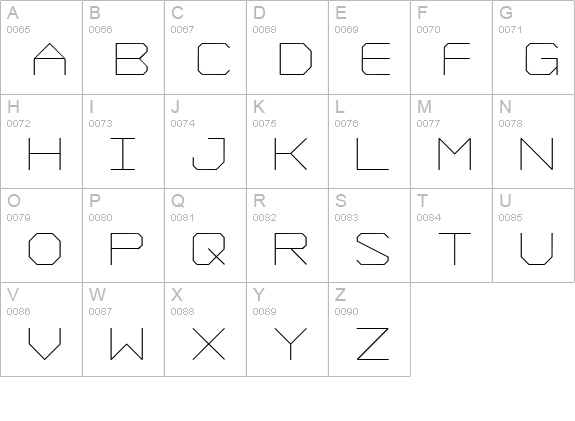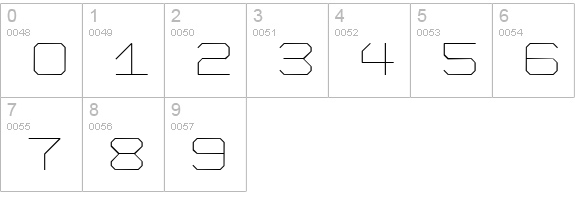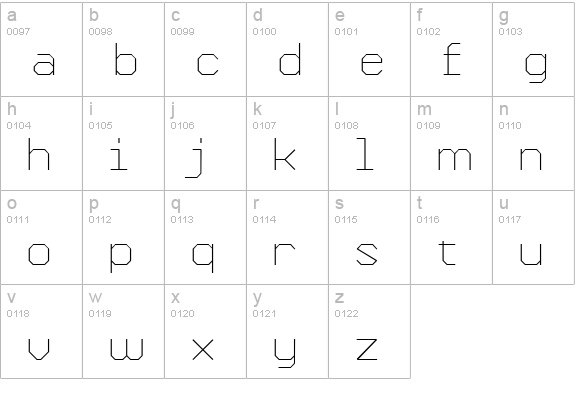
Formation UltraLight is an airy, ultra-refined variant in the Formation typeface family \xE2\x80\x94 well suited to minimalist headlines and refined display use.
Formation UltraLight is a sleek and modern typeface that exudes elegance and sophistication. With its delicate and thin letterforms, this font is perfect for adding a touch of refinement to any design project. The ultra-light weight of the characters gives a sense of airiness and grace, making it ideal for use in fashion, beauty, and luxury branding. What sets Formation UltraLight apart is not just its exquisite design, but also the fact that it is available for free. Yes, you read that right - this stunning font can be downloaded at no cost from FontsMarket.com. Whether you're a professional graphic designer looking to elevate your creations or a hobbyist exploring typography, Formation UltraLight is a valuable addition to your font library. Embrace the beauty and sophistication of Formation UltraLight as you create stunning designs that captivate and inspire. Download it for free today and let your creativity soar to new heights.